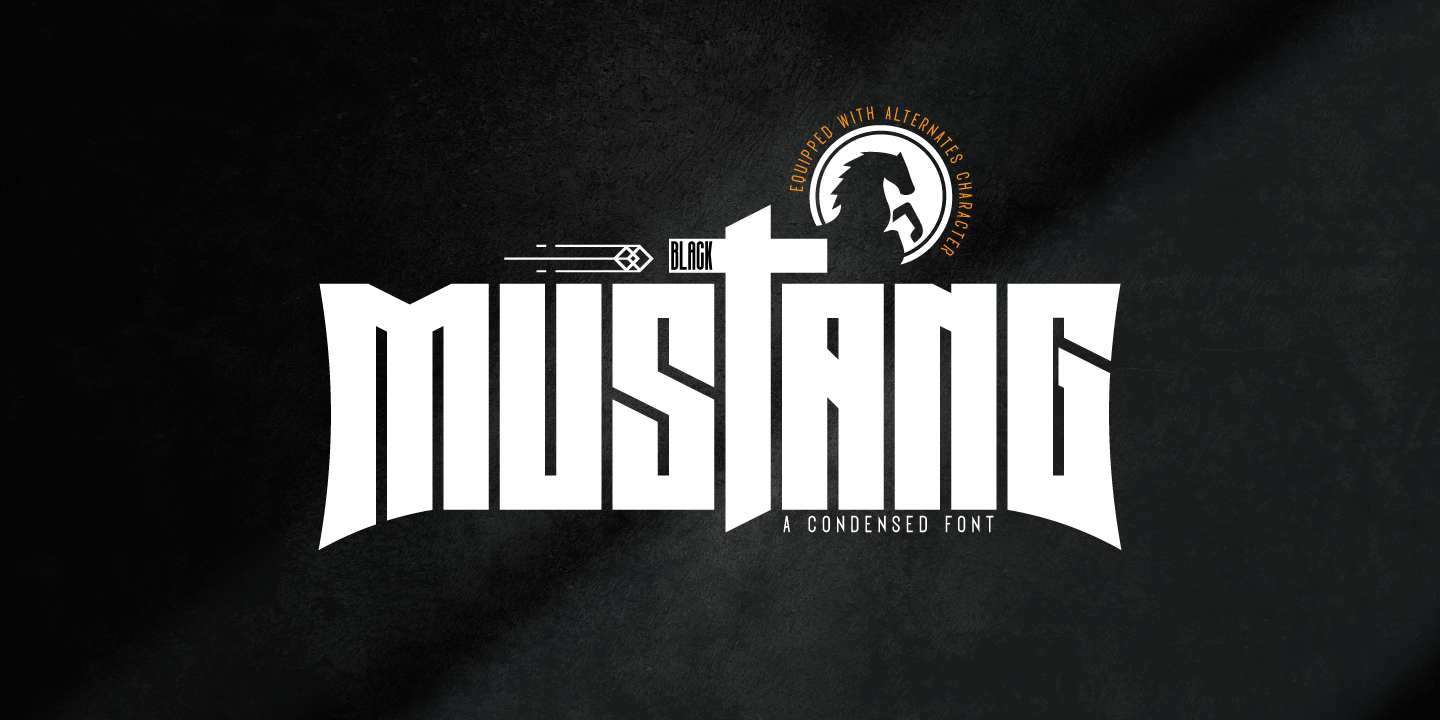
Black Mustang Font is excellent for automotive performance branding, muscle car enthusiast marketing, racing event promotions, motorcycle rally graphics, speed-focused advertising, high-octane entertainment venues, automotive garage signage, drag racing communications, horsepower celebration materials, and powerful vehicle customization projects.
What makes Black Mustang Font exciting is its raw automotive power that perfectly captures the untamed strength and rebellious freedom found in American muscle car culture and high-performance vehicle traditions. This typeface features bold letterforms with horsepower-inspired proportions and speed details that evoke the thunderous roar and unstoppable force of classic American muscle cars. The font's powerful personality and automotive authenticity make it ideal for performance brands seeking to convey strength, speed, and the raw power that comes from high-performance automotive excellence and muscle car heritage.
Black Mustang Font family includes powerful weight variations and performance alternatives that enhance its automotive appeal while providing design flexibility for racing and performance applications. The font features speed ligatures, horsepower-themed ornaments, and performance character variations that create authentic muscle car atmosphere for automotive and racing branding.
Automotive companies and racing organizations consistently choose Black Mustang Font Free Download for projects requiring authentic muscle car appeal and performance credibility. The font's powerful character excels in applications targeting car enthusiasts, racing fans, and performance seekers who appreciate genuine automotive power and muscle car heritage. Whether you're designing for automotive shops, racing events, or performance vehicle brands, this thunderous typeface delivers the automotive authenticity and raw power that resonates with audiences seeking genuine muscle car experience and the untamed freedom that defines American automotive performance and racing excellence.